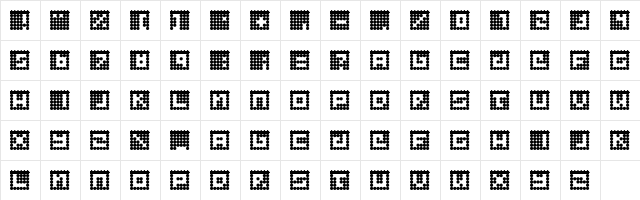
dmf studio forsyth Regular
Design Context for dmf studio forsyth Typeface
dmf studio forsyth takes a measured approach to typography — its balanced proportions and neutral character make it a reliable workhorse for both digital and print work.